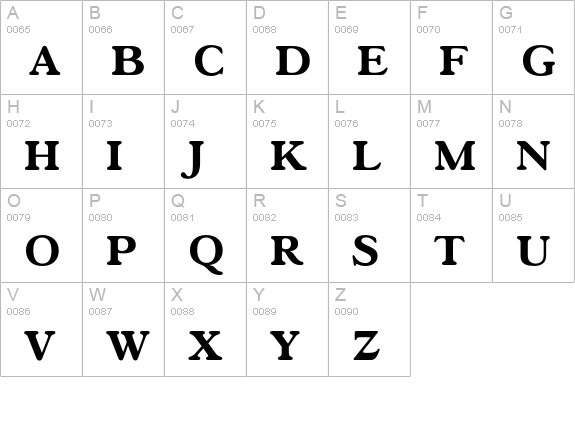
Gascogne-Bold is a strong, high-contrast variant in the Gascogne typeface family \xE2\x80\x94 well suited to headlines, attention-grabbing titles, and strong calls-to-action.